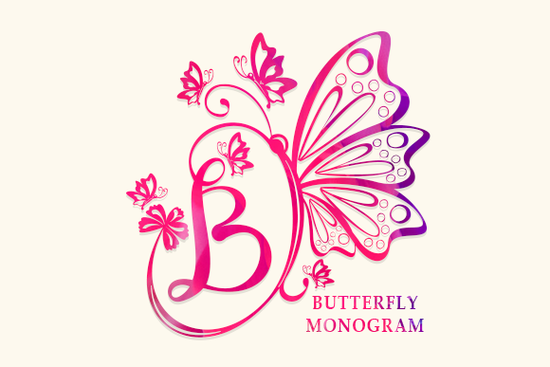
If you're looking for a decorative font that blends whimsy with sophistication, the Butterfly Monogram Font is worth a closer look. Designed with delicate flourishes and ornamental details, it’s especially well-suited for projects that call for a personal, handcrafted touch think wedding stationery, custom greeting cards, or even social media graphics that stand out without shouting.
What makes this font appealing is how it balances elegance with usability. The butterfly motifs aren’t overwhelming; they’re integrated thoughtfully into letterforms, giving each character a subtle charm. Whether you’re designing a monogrammed gift tag or a bridal shower invitation, the font adds personality without sacrificing readability.
What kinds of projects work best with Butterfly Monogram?
This font shines in contexts where aesthetics matter as much as message. Here are a few natural fits:
- Wedding invitations and save-the-dates – Pair it with clean sans-serif fonts for contrast and clarity.
- Handmade greeting cards – Especially for spring, baby showers, or milestone birthdays.
- Social media quotes or announcements – Its decorative nature draws the eye in feeds full of plain text.
- Print-on-demand products – Mugs, tote bags, or wall art featuring personalized initials look instantly elevated.
Because it’s a display font, it’s best used for headlines, names, or short phrases rather than body text. That said, its legibility holds up surprisingly well even at smaller sizes just avoid using it for dense paragraphs.
How does it compare to other decorative fonts?
If you’ve browsed Creative Fabrica’s decorative font collection, you might have come across options like Pokenom, which leans into playful, rounded shapes, or Rope Rider, a bolder script with nautical-inspired textures. Butterfly Monogram sits in a different lane: softer, more romantic, and ornament-forward.
Unlike fonts that rely solely on swashes or exaggerated strokes, Butterfly Monogram incorporates actual butterfly elements into select letters often the uppercase “B,” “M,” or terminal characters. This makes it ideal if you want symbolism (like transformation or lightness) baked into your typography.
Tips for using it effectively
Even beautiful fonts can fall flat if not used thoughtfully. Here’s how to get the most out of Butterfly Monogram:
- Pair it wisely. Combine it with minimalist fonts like Montserrat, Lora, or even a basic serif to let the decorative style breathe.
- Mind your spacing. Some letters with butterfly accents may need slight kerning adjustments in design software to avoid visual crowding.
- Use color intentionally. Soft pastels (lavender, blush, sage) enhance its gentle vibe, but don’t shy away from metallic gold or deep navy for contrast on luxury items.
- Limit usage to focal points. One or two words in Butterfly Monogram often make more impact than an entire sentence.
Remember: decorative fonts like this are tools for emphasis, not everyday text. Their power lies in scarcity using them sparingly keeps your design feeling intentional, not cluttered.
Who should consider this font?
If you run a small stationery business, create digital templates for Etsy, or personalize gifts for friends and family, Butterfly Monogram offers a distinctive yet versatile option. Crafters who work with vinyl cutters or sublimation printers will appreciate how cleanly the details render, provided your software supports OpenType features (which Creative Fabrica files typically do).
It’s also beginner-friendly. You don’t need advanced typography knowledge to use it well just a sense of balance and a willingness to experiment with layout.
With its blend of artistry and practicality, Butterfly Monogram isn’t just another pretty font it’s a functional asset for creators who value both beauty and clarity.